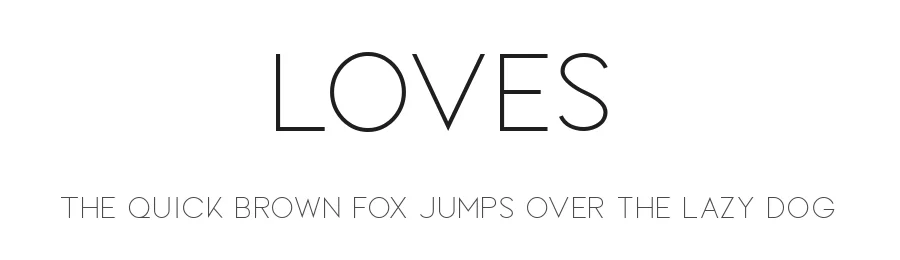
About Lonely Font
Lonely is a sans-serif font designed by Vladimir Nikolic. It includes 73 glyphs, a regular weight, TTF (TrueType) format, and 89 languages. Lonely is free to download; check the license details on this page before commercial use. Sans-serif fonts like Lonely work best for clean body text, user interfaces, branding, and modern layouts.
Lonely Font is a versatile sans-serif font that works for both headings and body text. Pair it with a contrasting serif or slab serif font to add visual interest and a clear distinction between titles and body copy.
Lonely Font